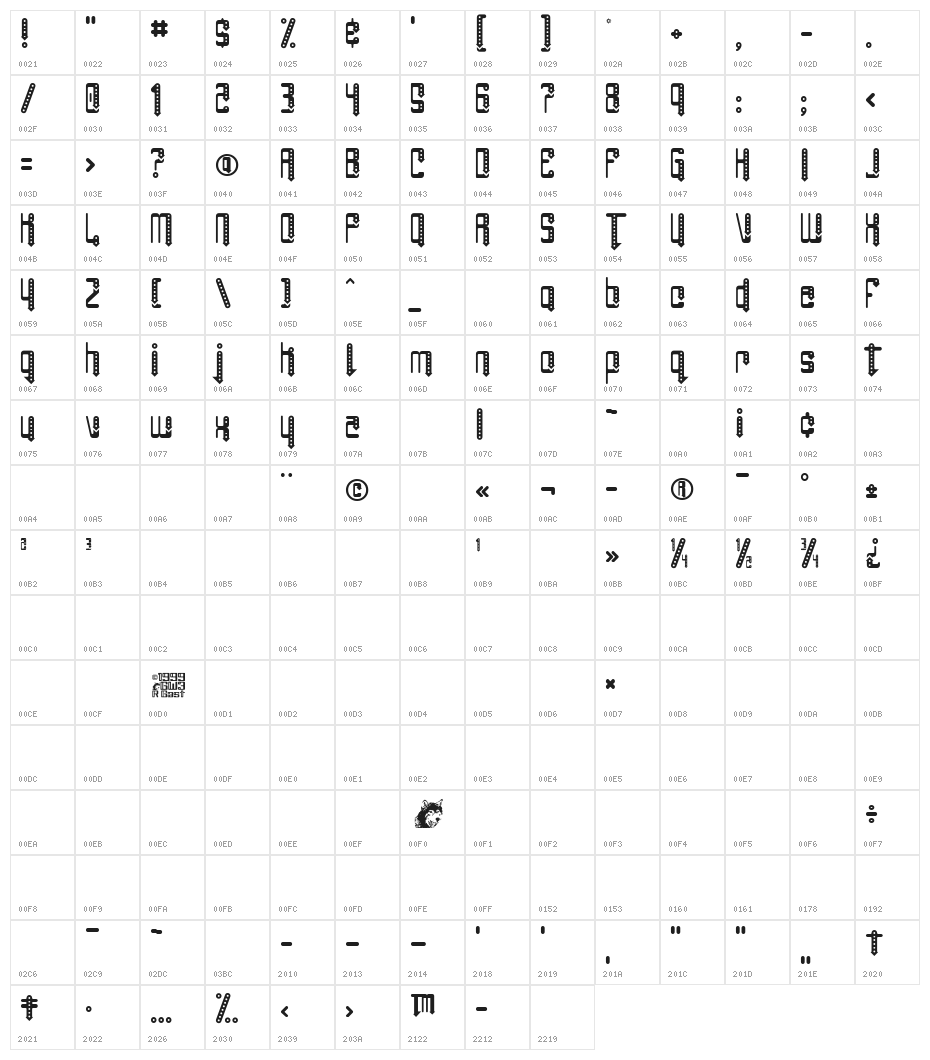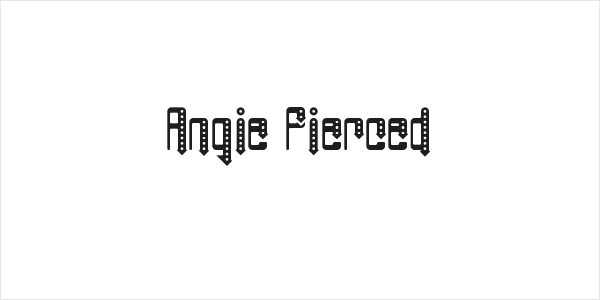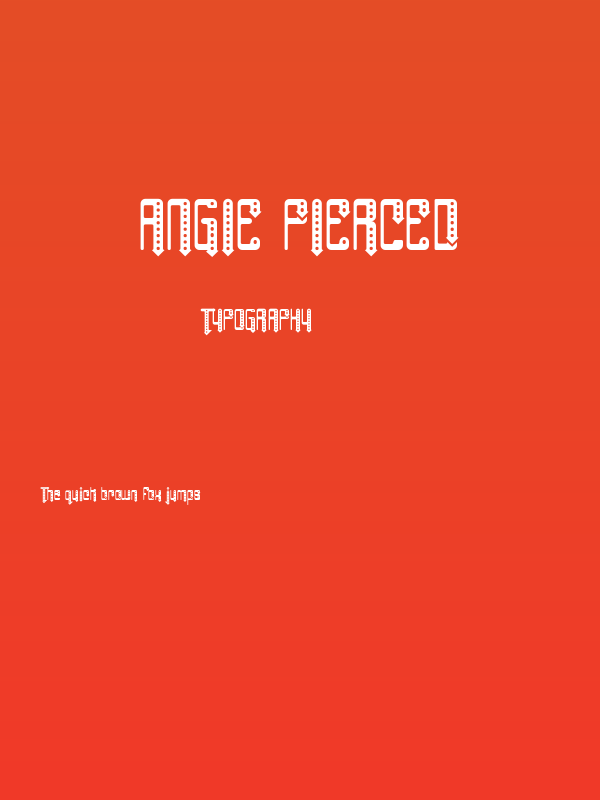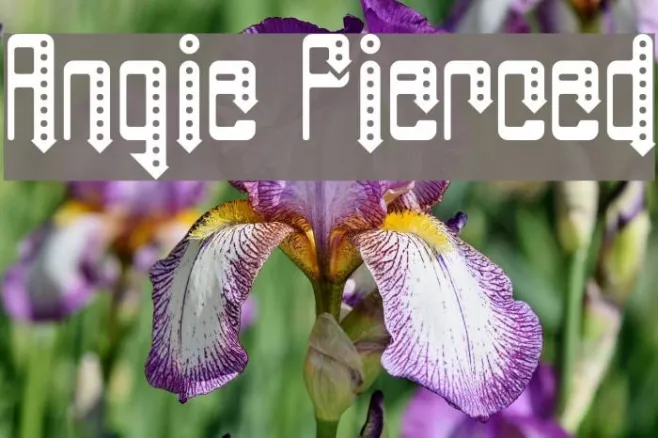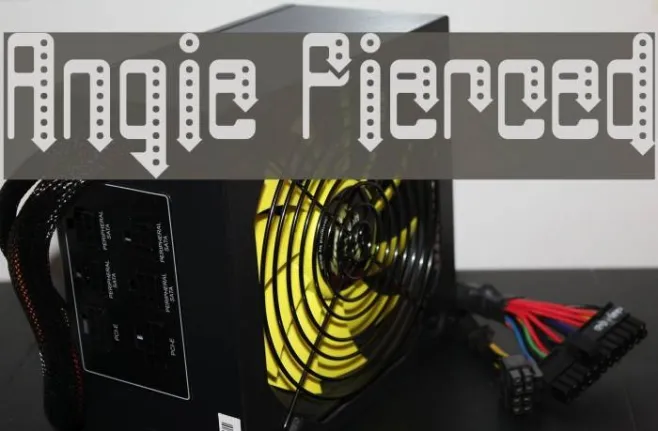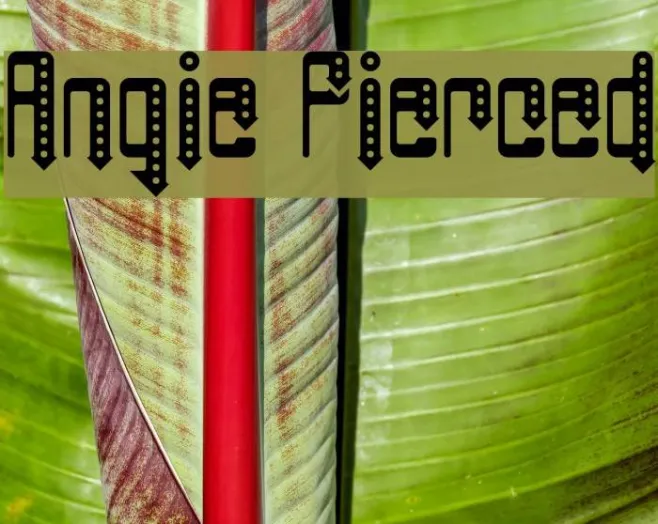
Angie Pierced Font
Angie Pierced Description
This font features a unique and bold design with a pierced effect, where each character appears to have been punctured by small, evenly spaced holes. The geometric structure of the letters gives it a modern and industrial feel, while the consistent use of circular cutouts adds a decorative touch. The uppercase and lowercase letters maintain a uniform style, with sharp angles and straight lines dominating the design. Numbers and special characters follow the same aesthetic, ensuring a cohesive look across all elements. The font's distinct appearance makes it ideal for projects that require a standout, edgy typeface.
| Overall Style | Modern, Industrial |
| Proposed Projects | Ideal for branding, posters, album covers, and any project needing a bold, industrial look. |